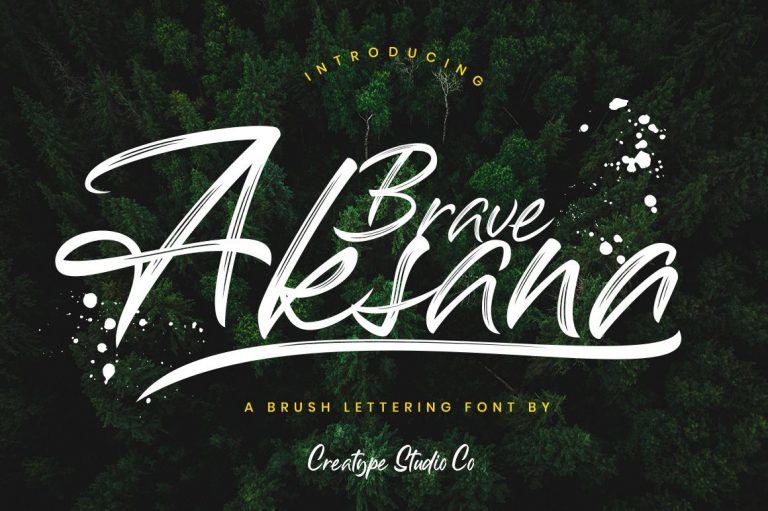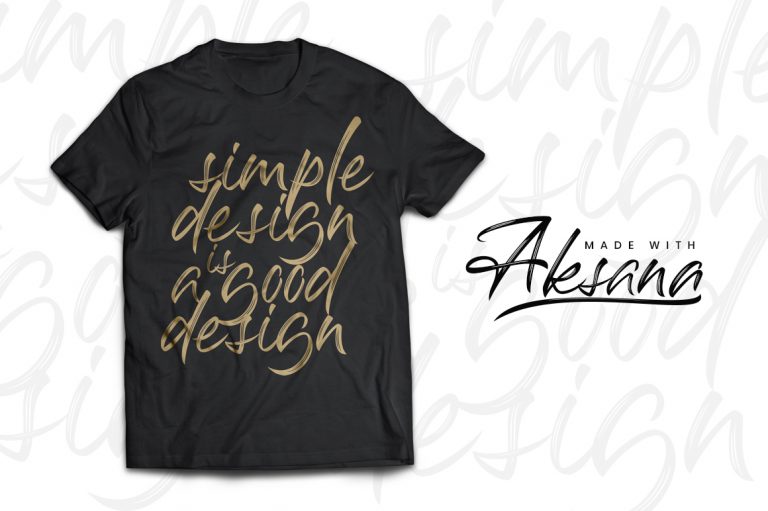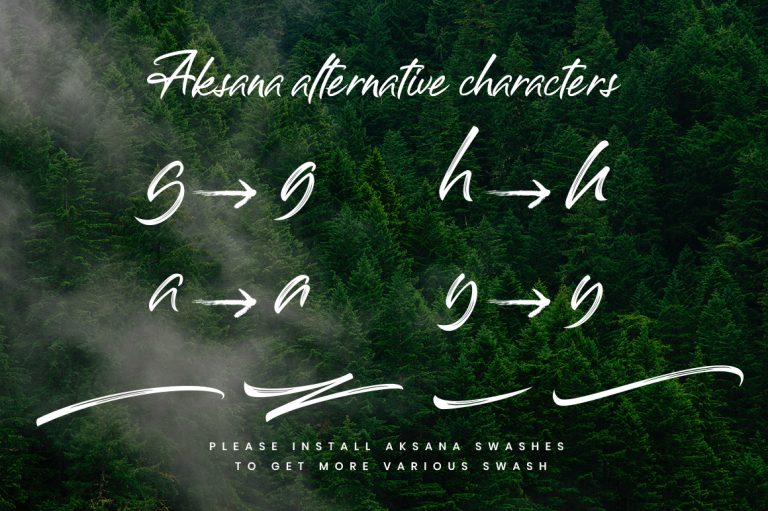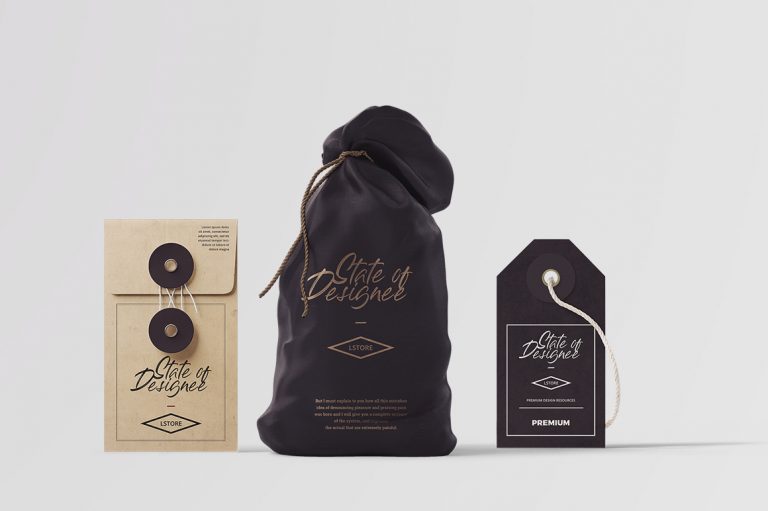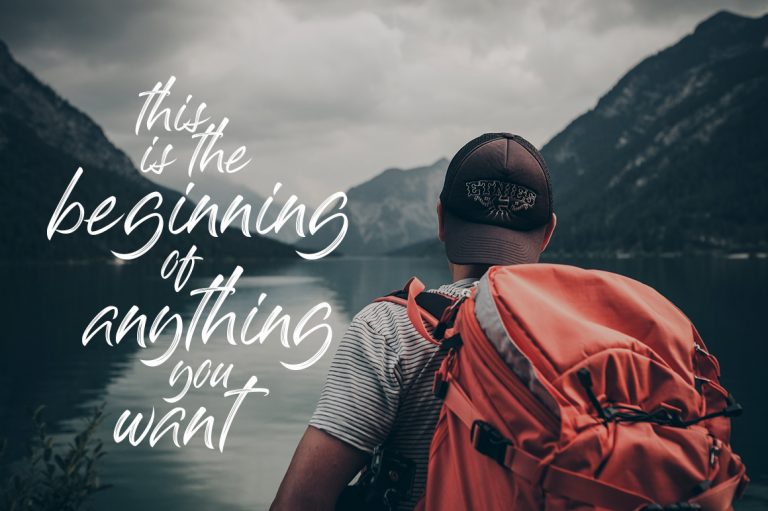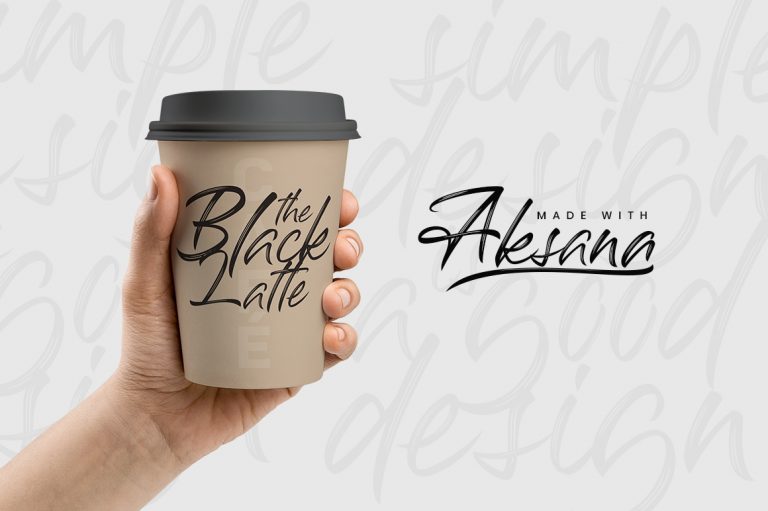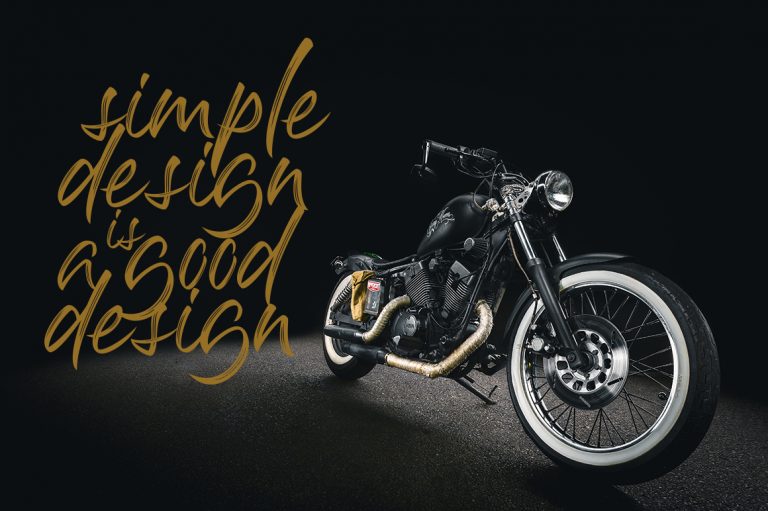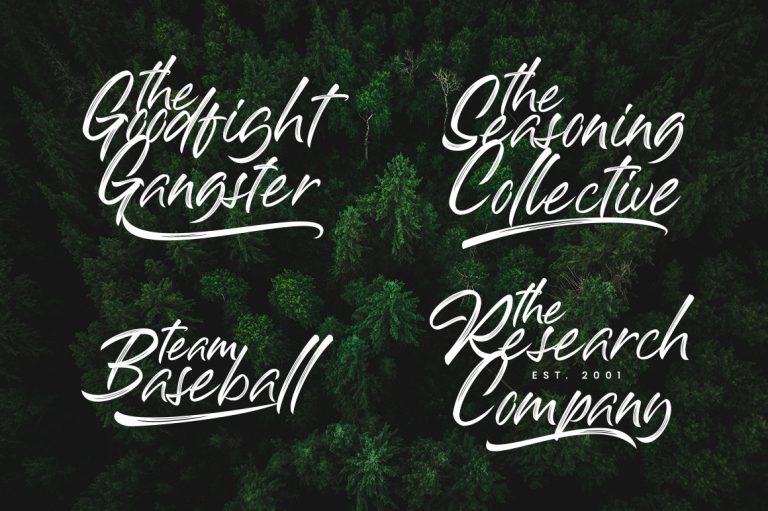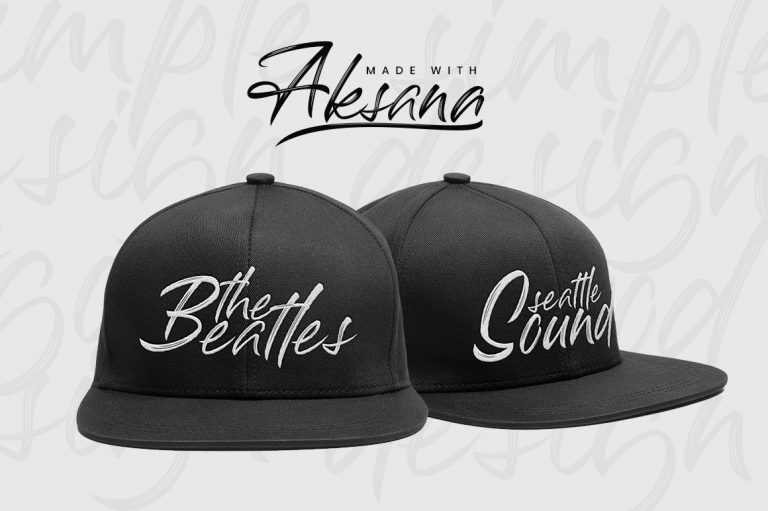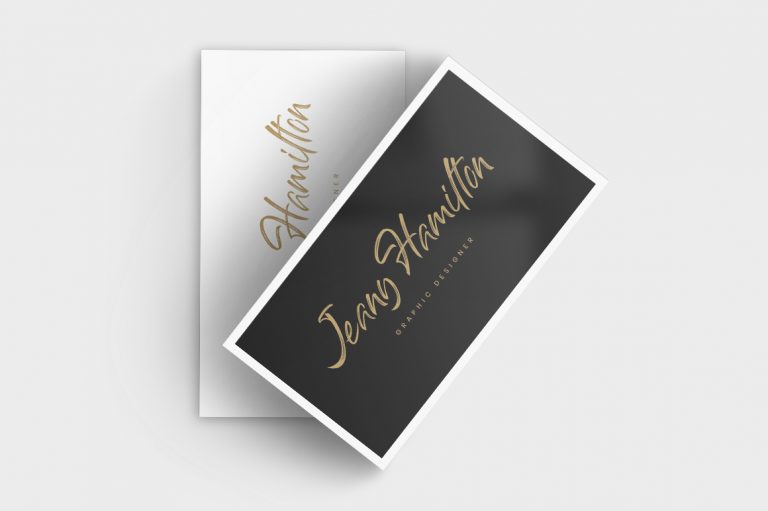
Presenting Aksana, taken from my 3rd son’s name – Aksana Satya Rahardi – It is a modern brush script with handwritten style with a personal charm and it’s looks stylish and elegant.
Aksana is perfect for branding projects, wedding designs, social media posts, advertisements, product packaging, product designs, label, photography, watermark, invitation, stationery and any projects that need handwriting taste.
- Ton of glyphs (include Uppercase, Lowercase, Numerals & Punctuations, Ligature, Swashes)
- Ligature & Stylistic alternate
Aksana Brush Script